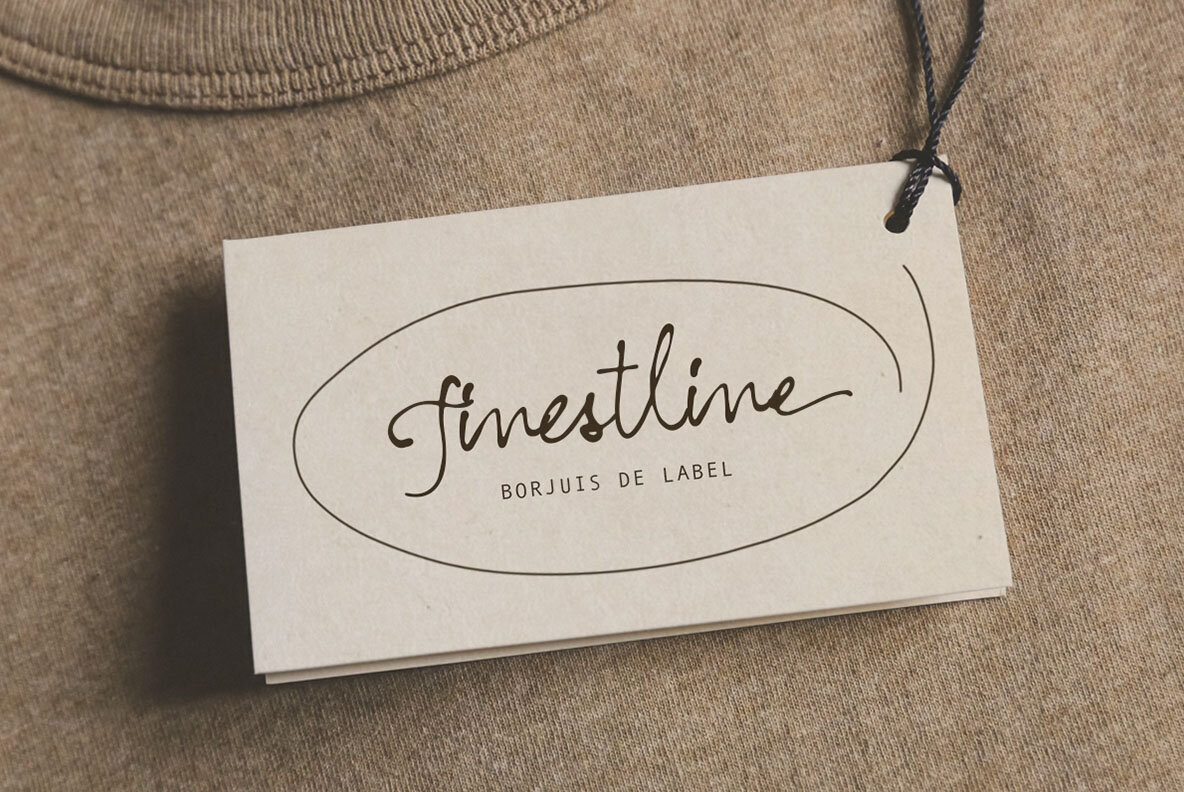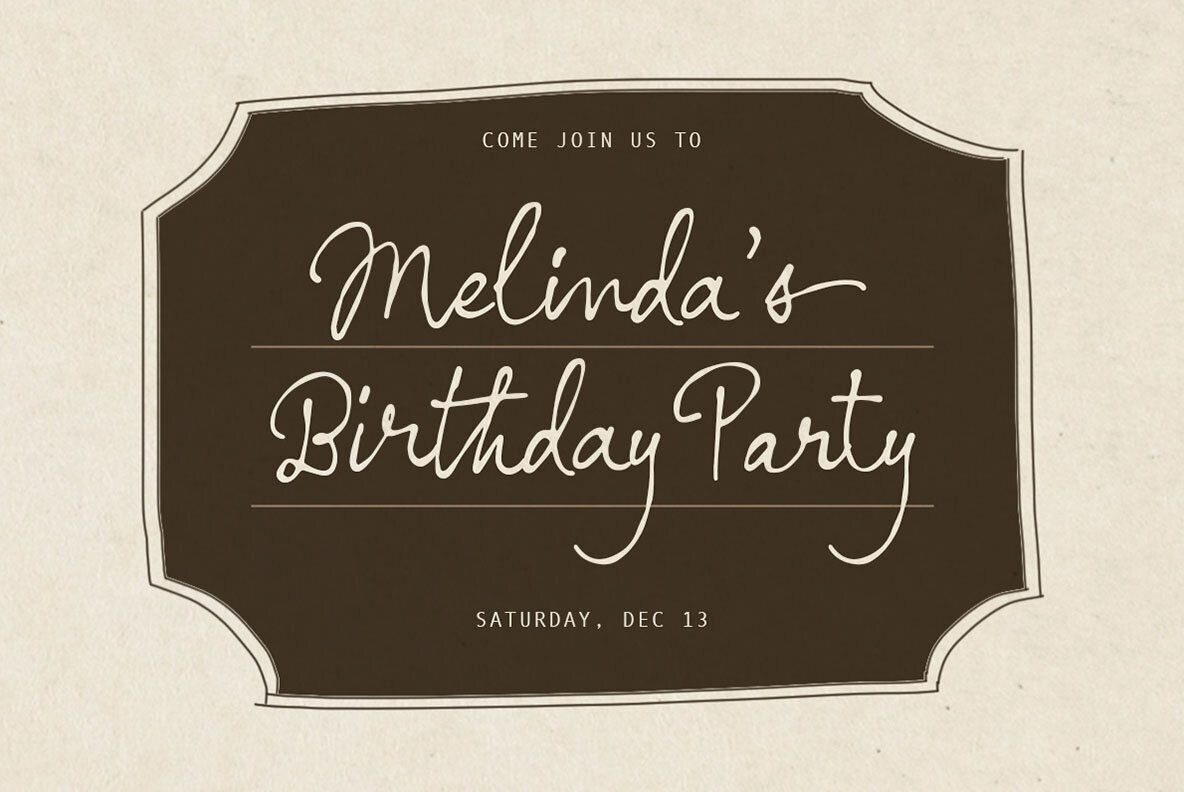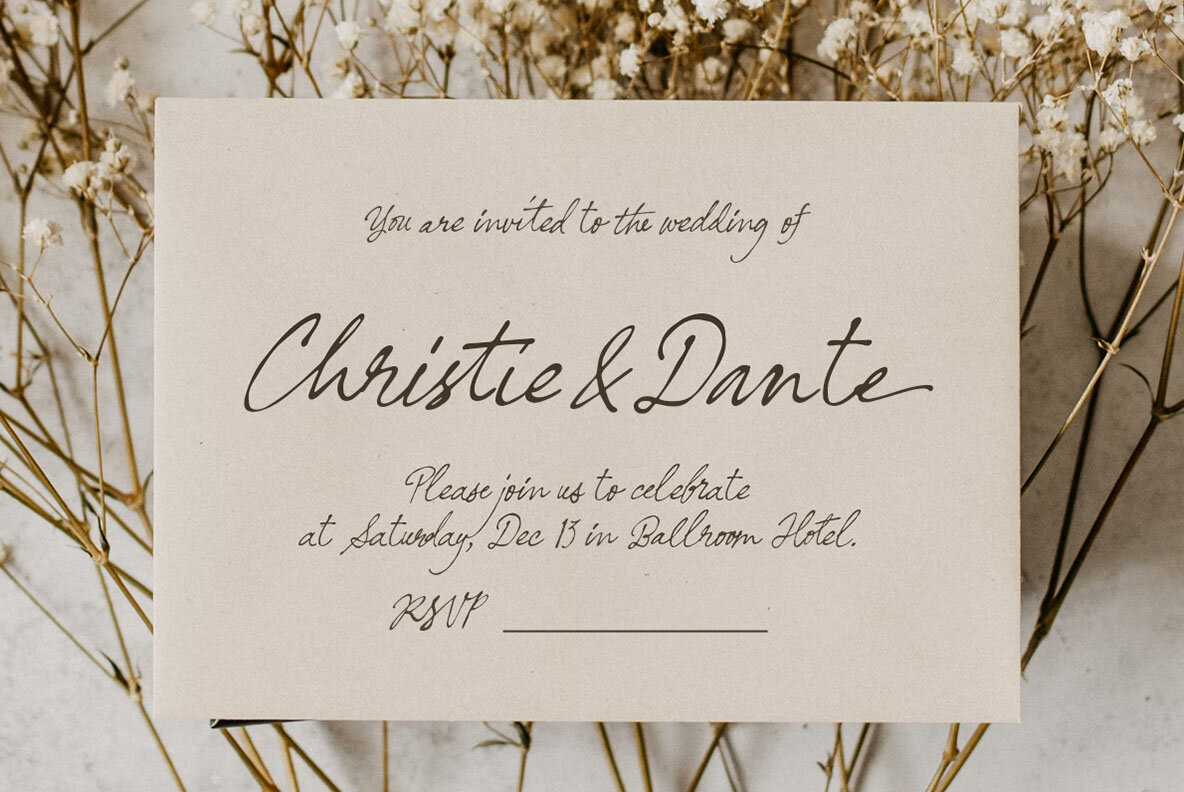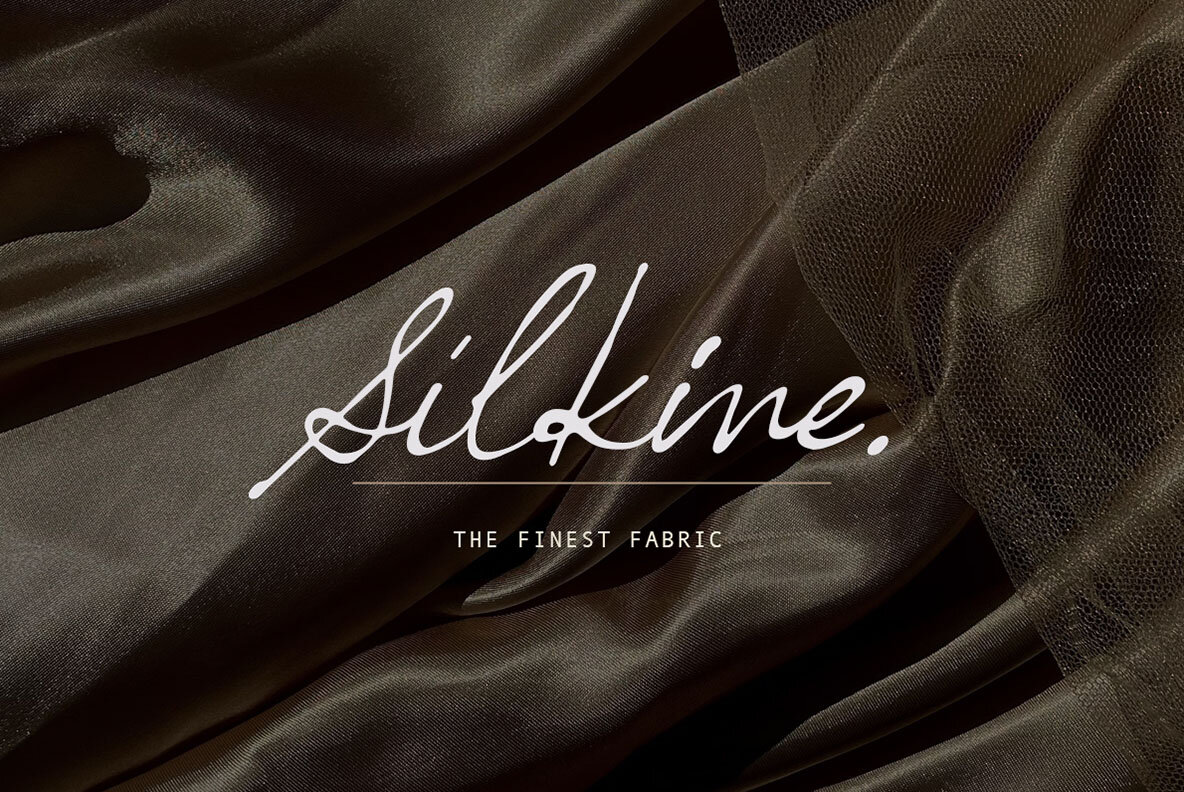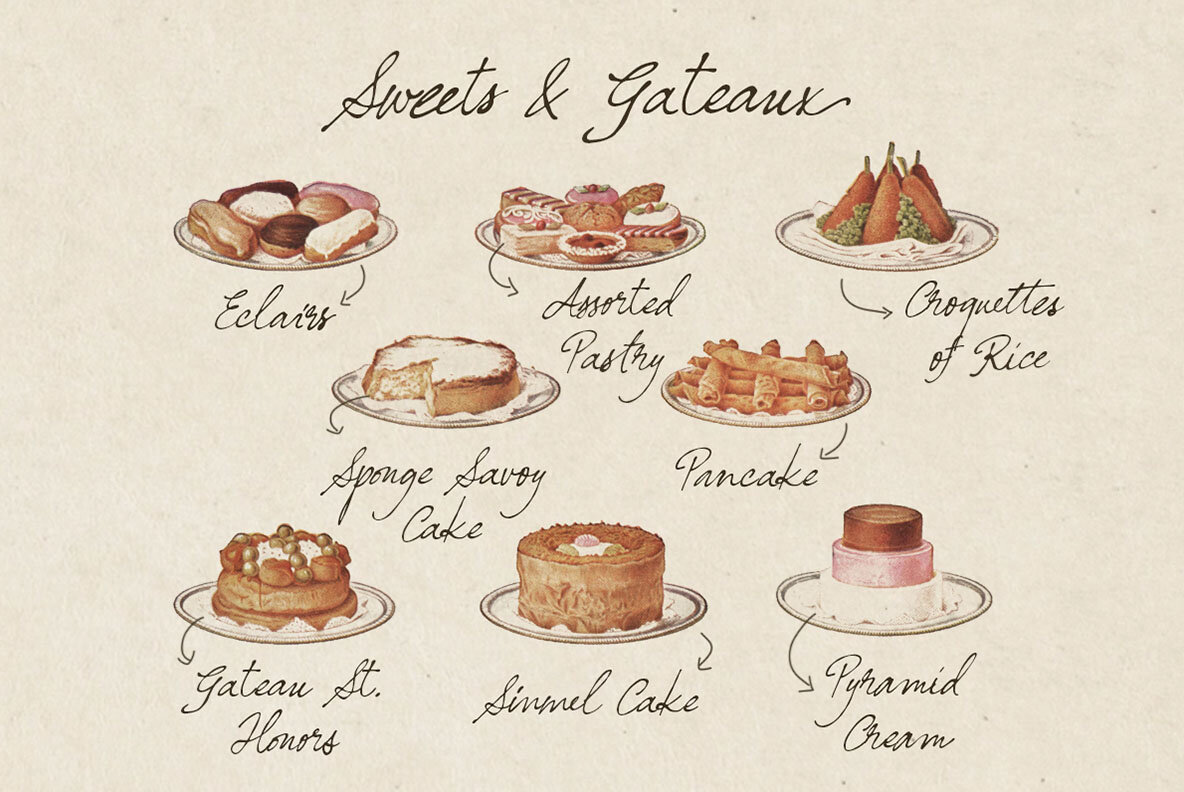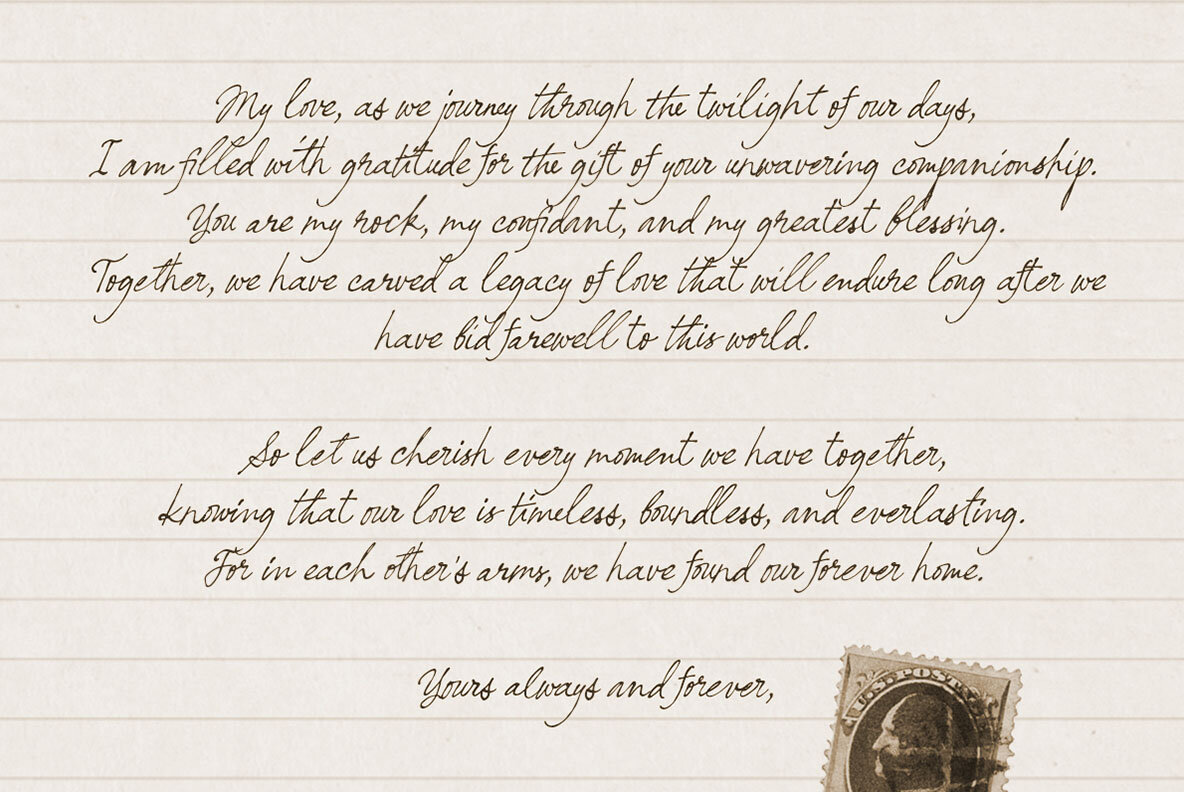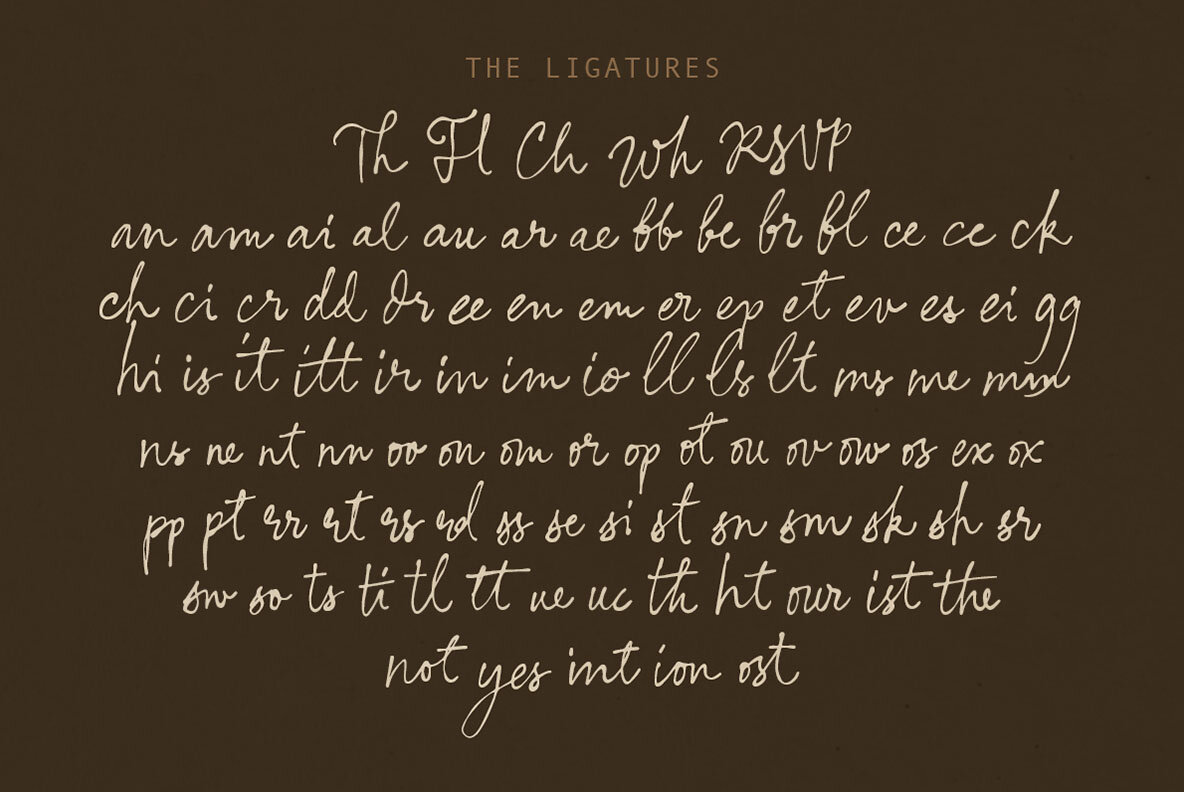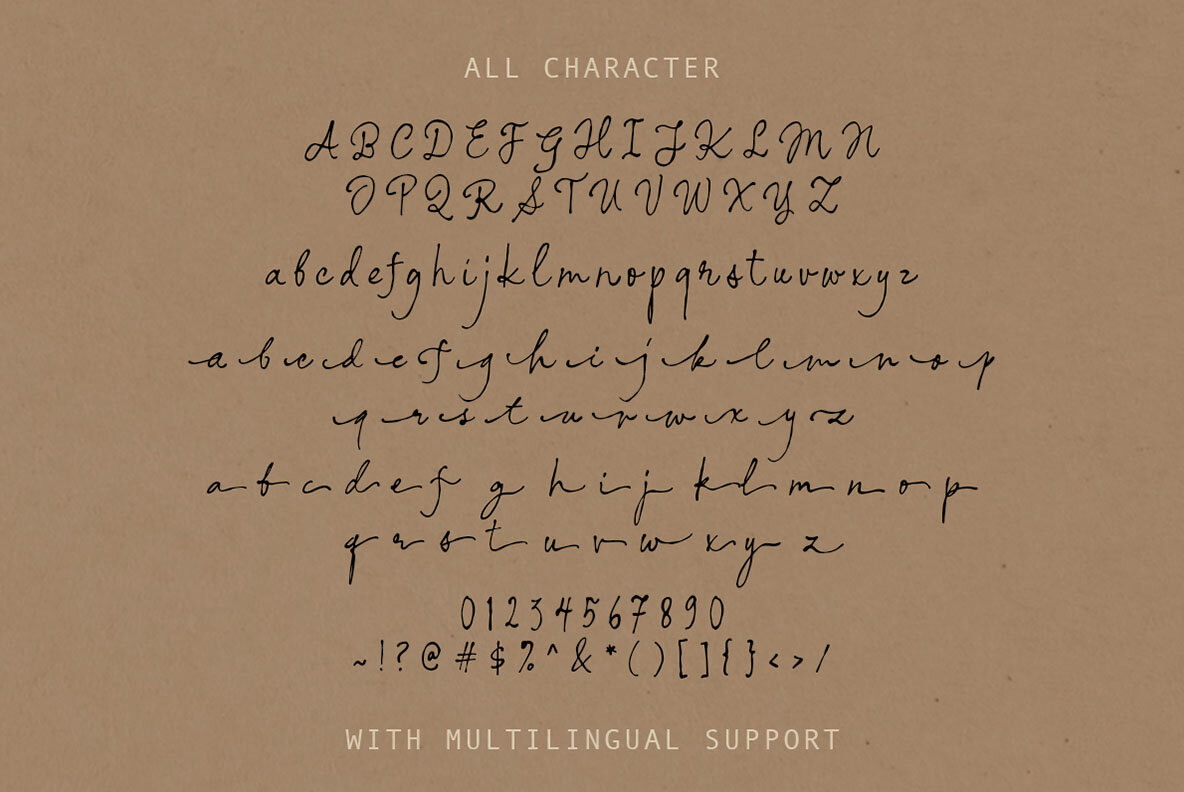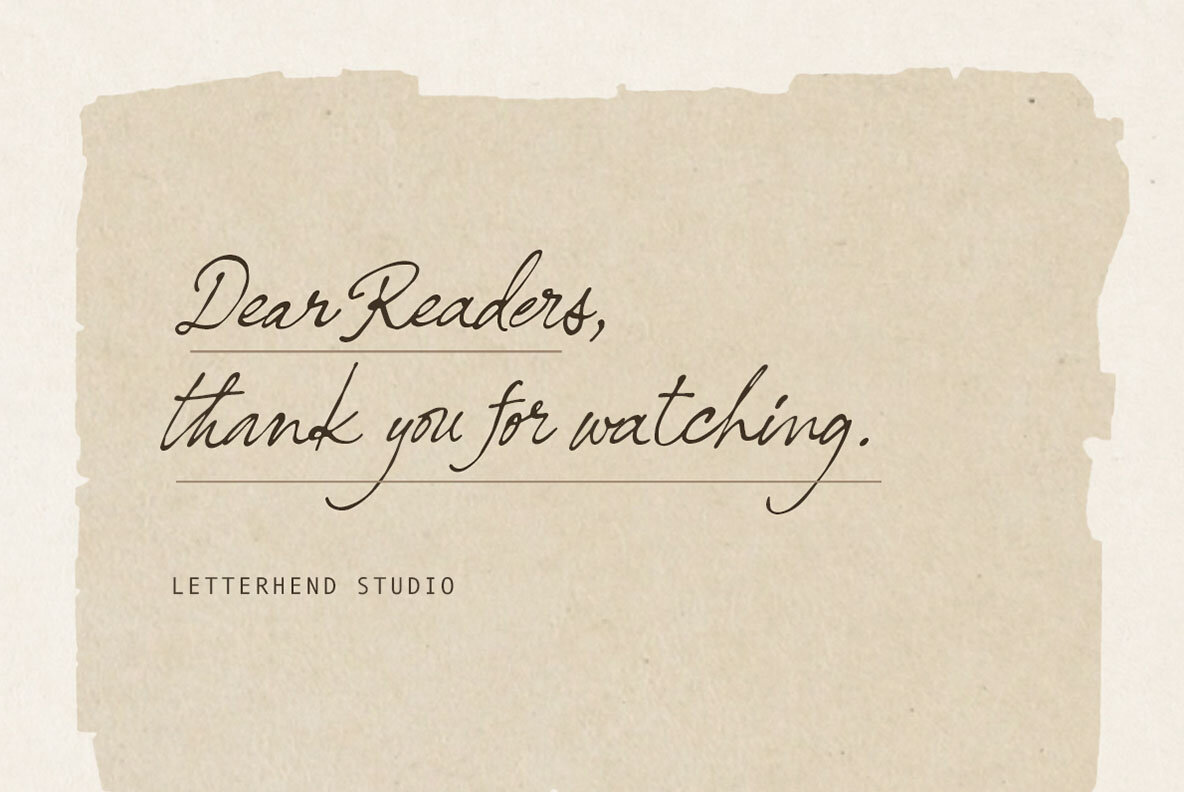
Nostalgic Words Font
This hand-drawn, cursive script typeface provides a sense of personal touch and spontaneity. Its fluid and organic letterforms are characterized by varying stroke weights and a playful, contemporary feel. The font's casual and dynamic style makes it ideal for applications requiring a touch of informality and charm, such as creative branding, invitations, or personalized communications.